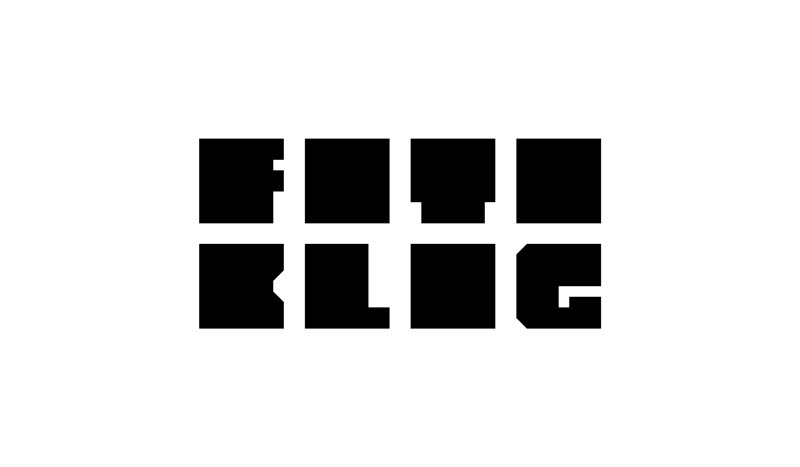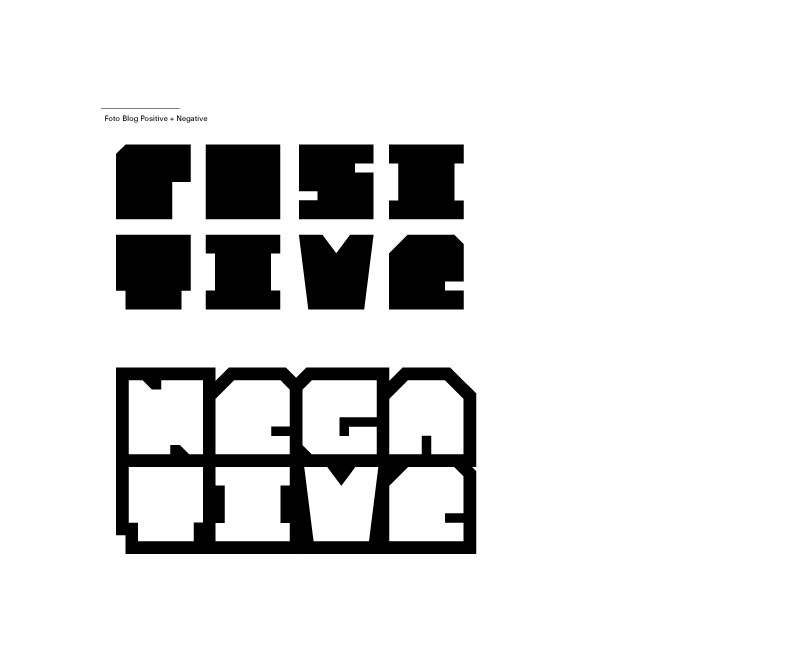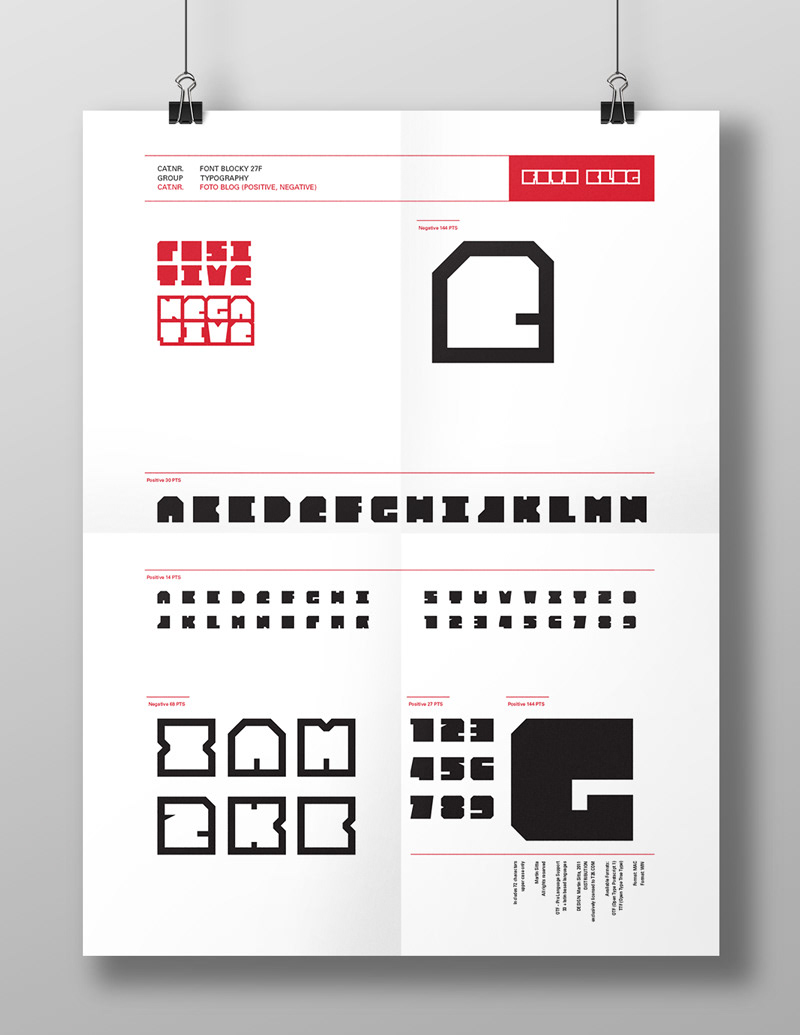
Foto Blog font
Foto Blog is blocky logotype with an extra bold feel. In general, Foto Blog is recommended to use as a display font and is great for clipping masks in photography.